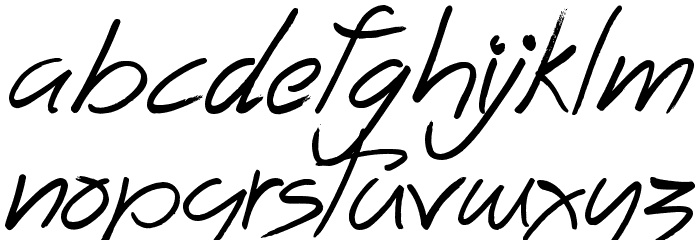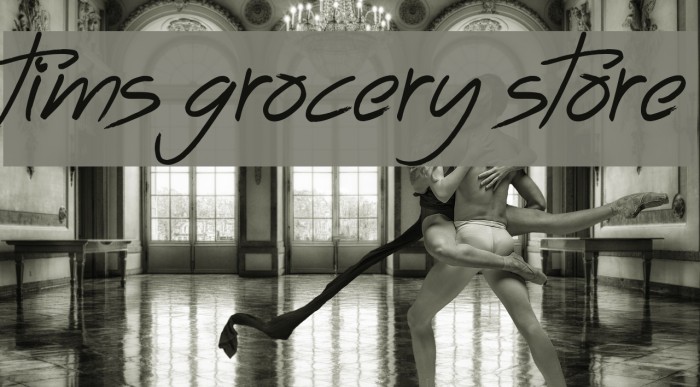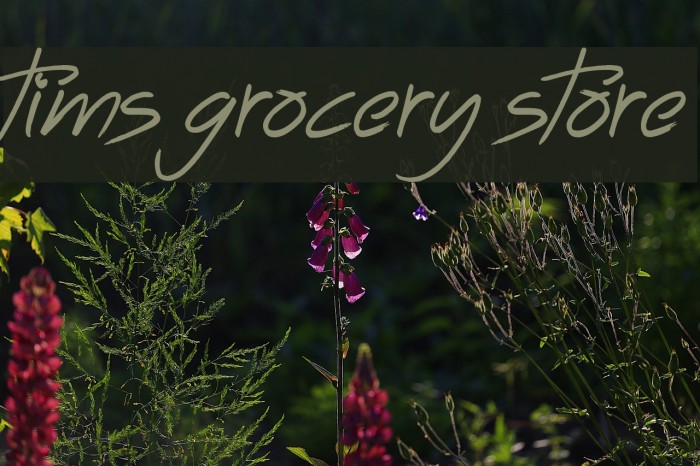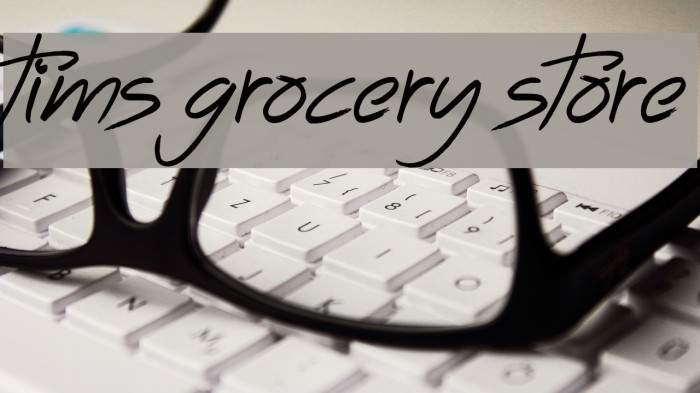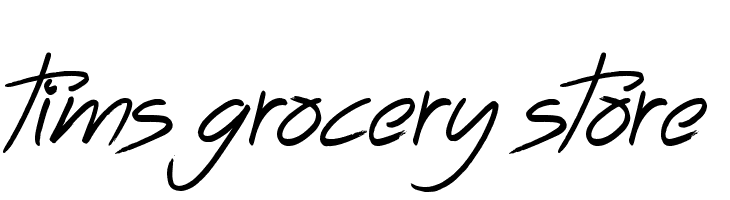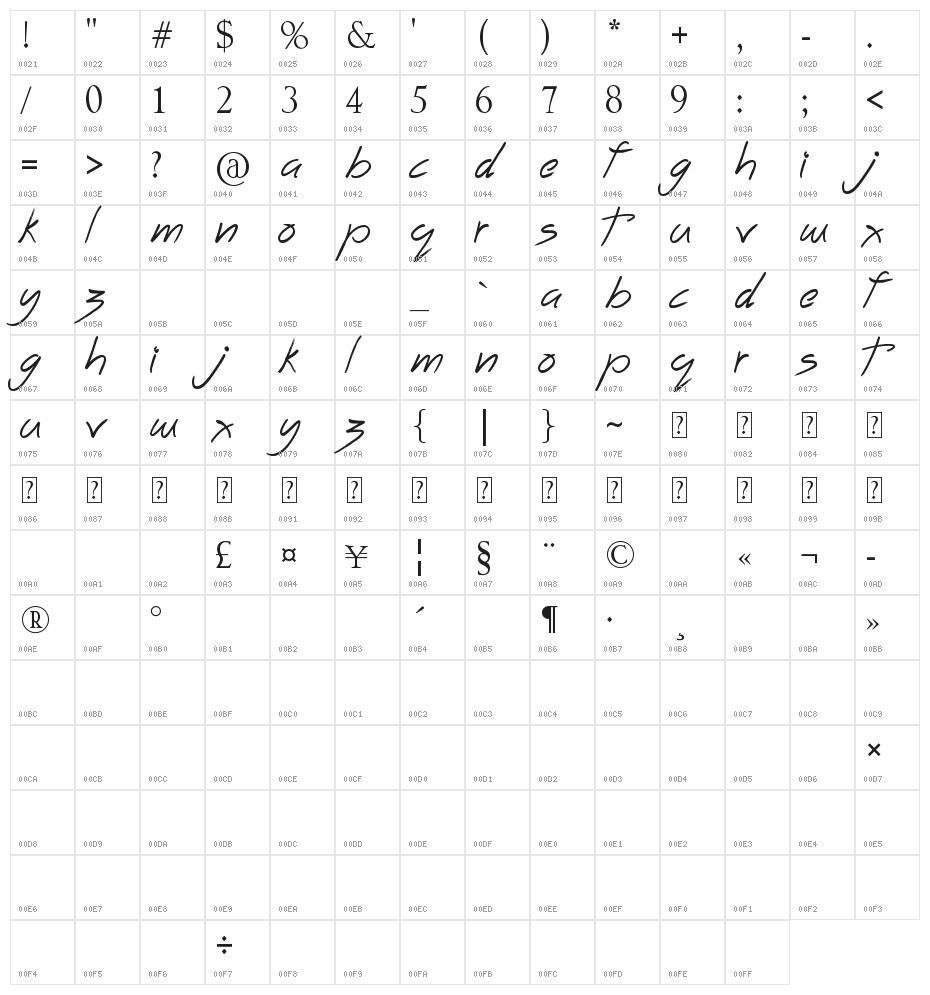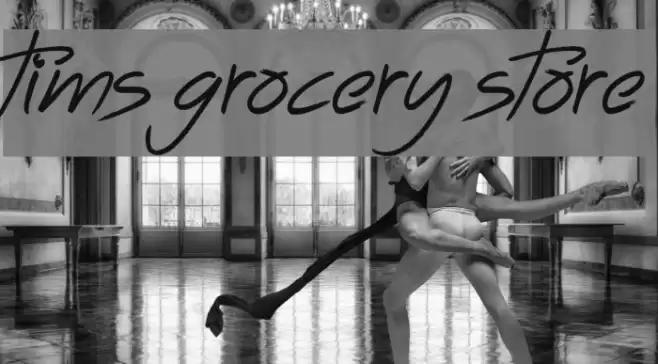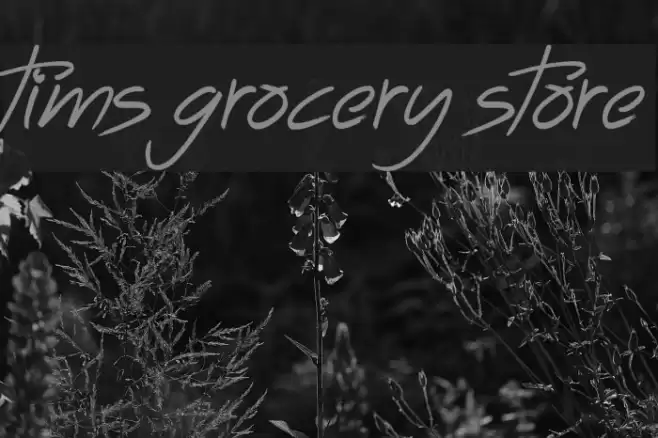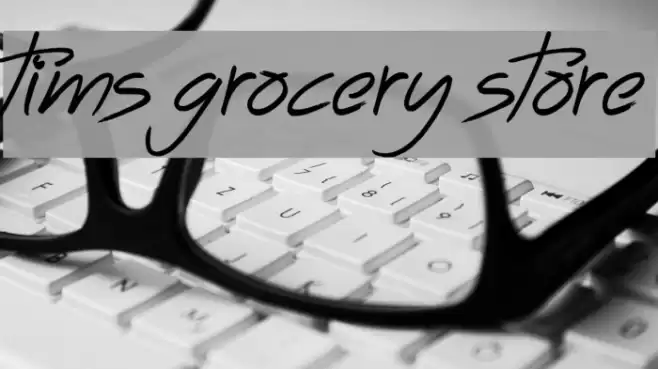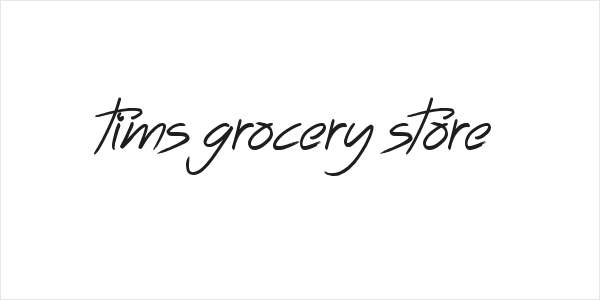
Tims Grocery Store Font
This font features a dynamic and fluid script style, characterized by its elegant and flowing letterforms. The characters exhibit a handwritten quality with smooth curves and varying stroke widths, giving it a lively and personal touch. The uppercase and lowercase letters are well-balanced, maintaining a consistent rhythm throughout. The numerals are clear and legible, complementing the overall aesthetic. Special characters are thoughtfully designed, integrating seamlessly with the rest of the font. This style is particularly suited for projects that require a personal or artistic flair.
A dynamic and fluid script font with elegant, flowing letterforms.
- Proposed Projects: Ideal for invitations, greeting cards, branding, and artistic projects.
- Use Case: Logos, Invitations, Artistic projects